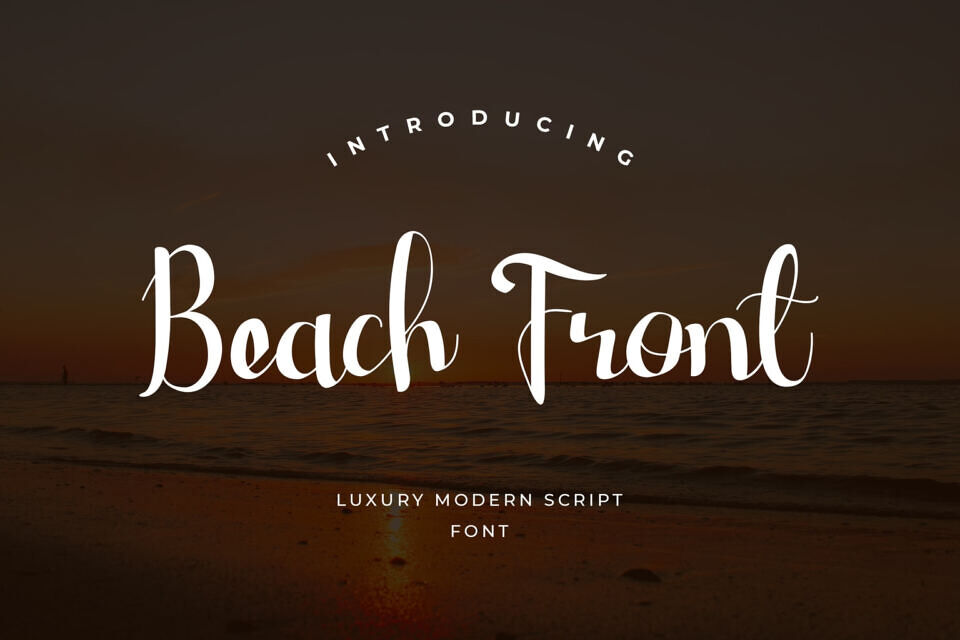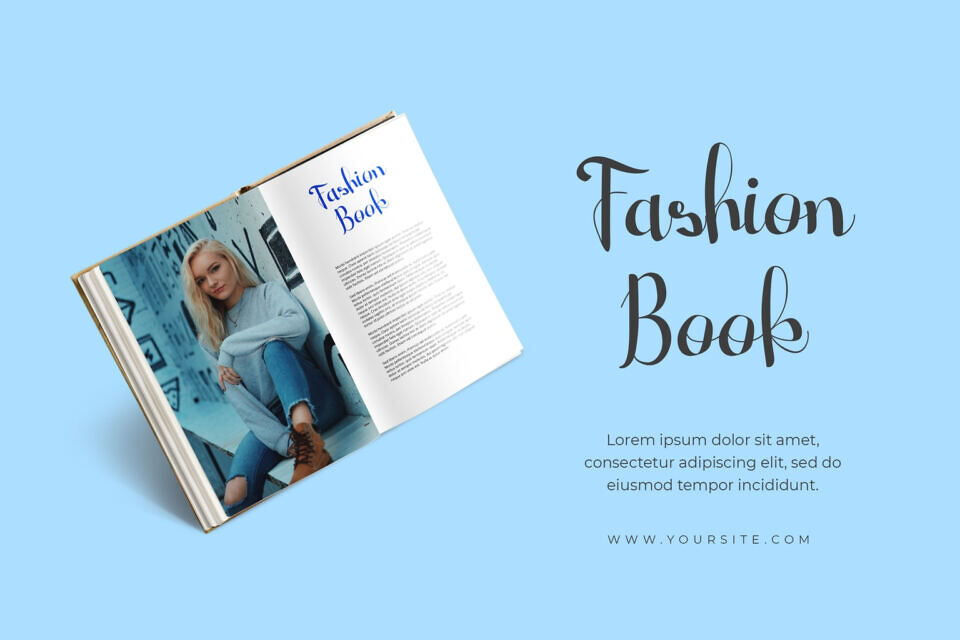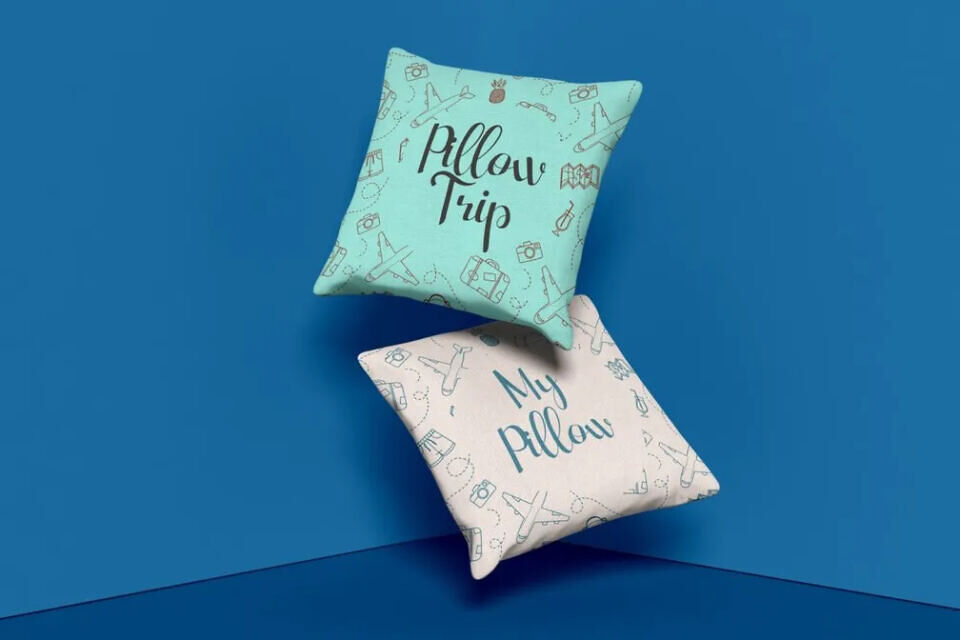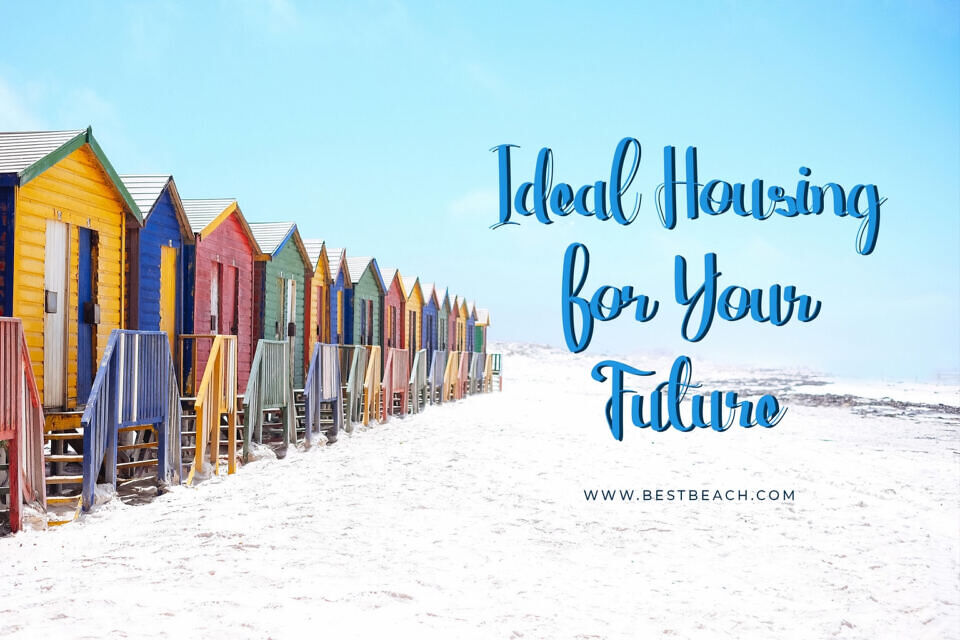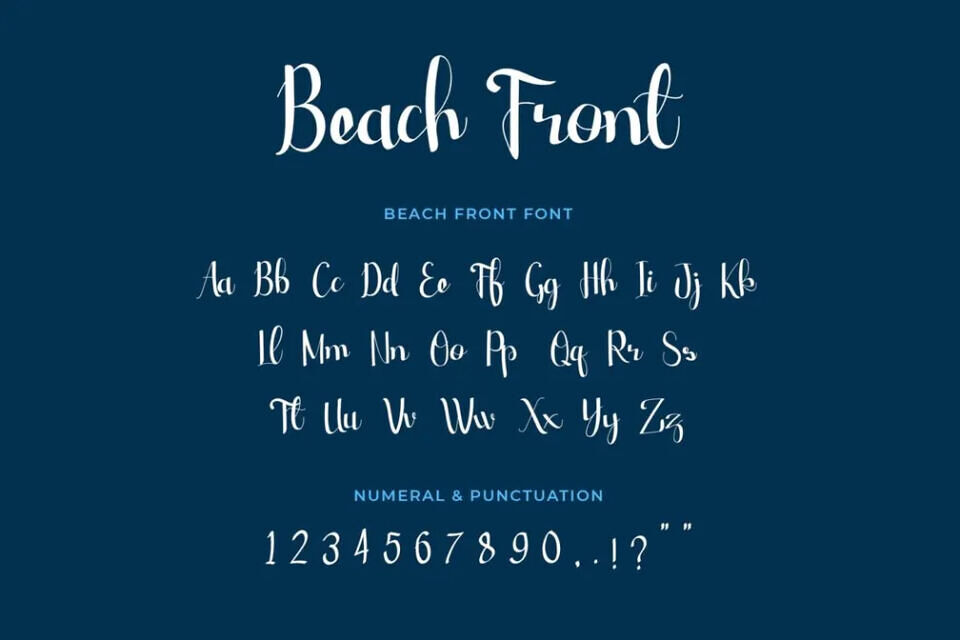
Beach Front is a font that has a distinctive soft handwriting style. Having charming and unique glyphs and typography is certainly suitable for your various art and design projects.
For example such as logos & branding, invitation, stationery, wedding designs, social media posts, advertisements, product packaging, product designs, label, photography, watermark, special events or anything that need handwriting taste.